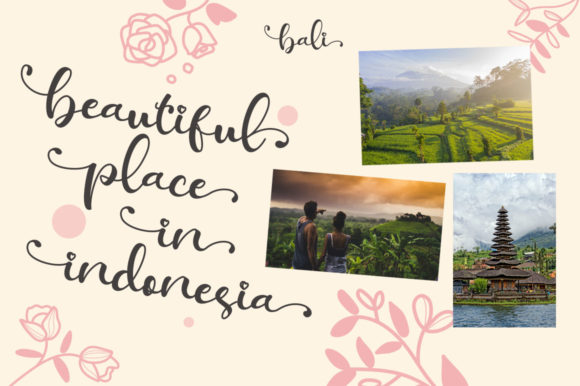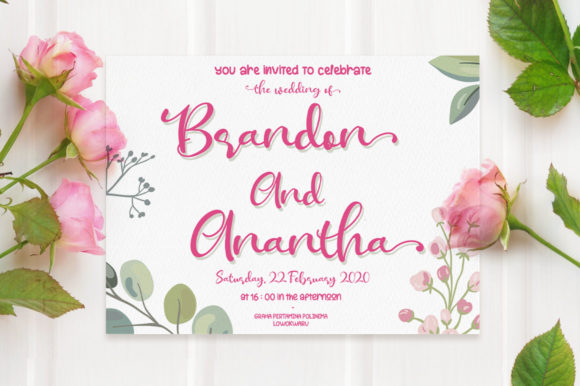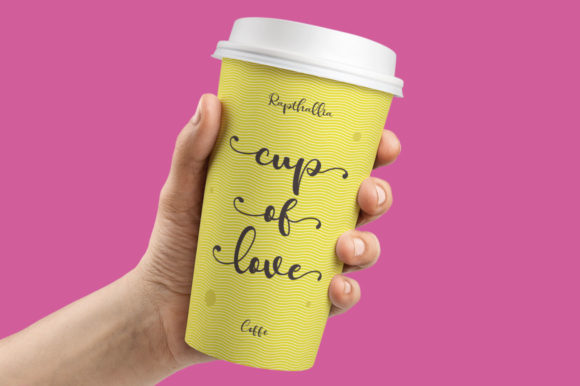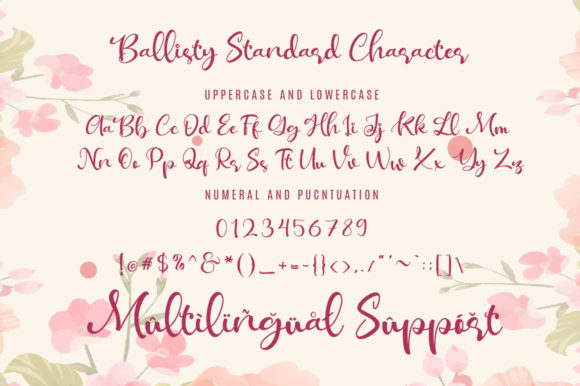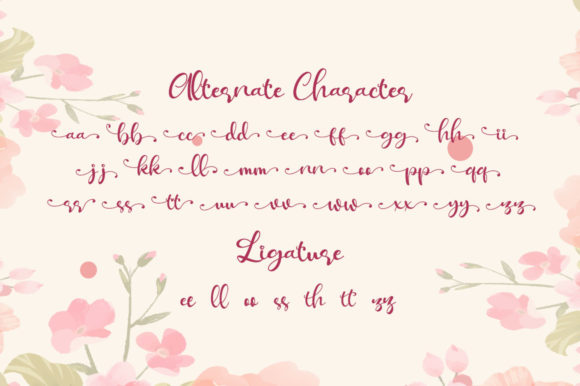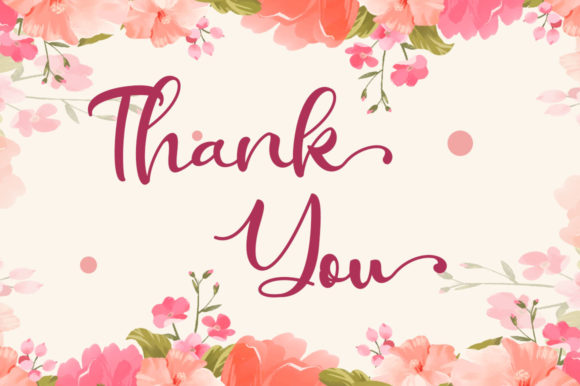
Ballisty Font
About Ballisty Font
Ballisty is a playful modern handwritten font. It is suitable for projects such as wedding invitations, posters, book covers and much more.